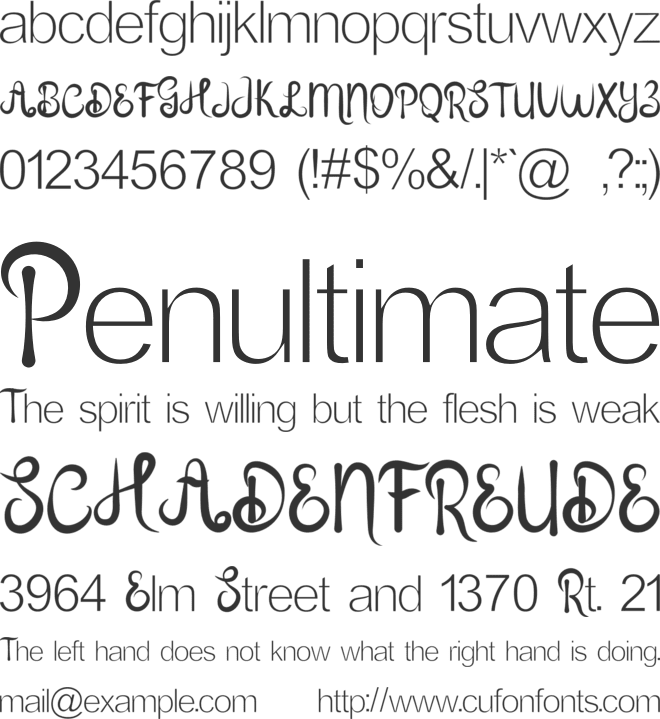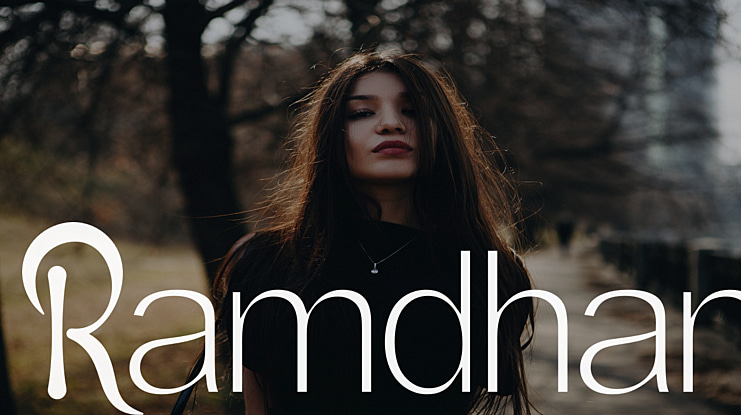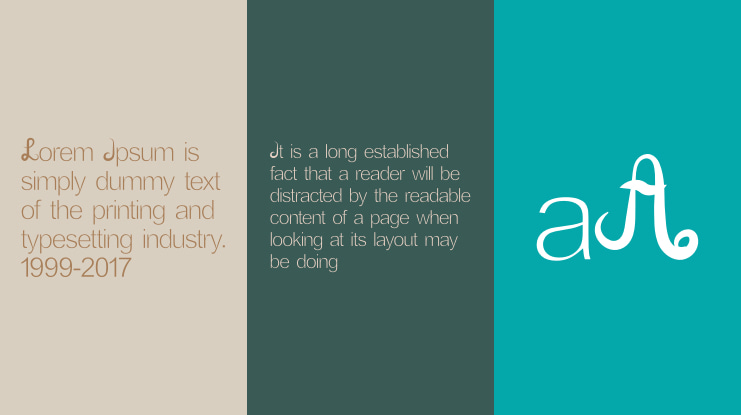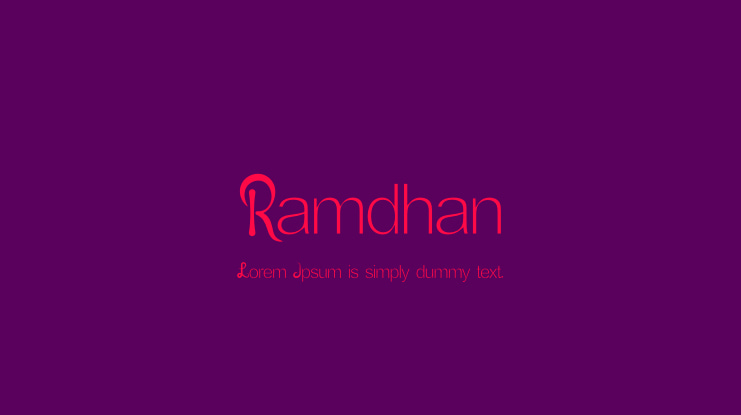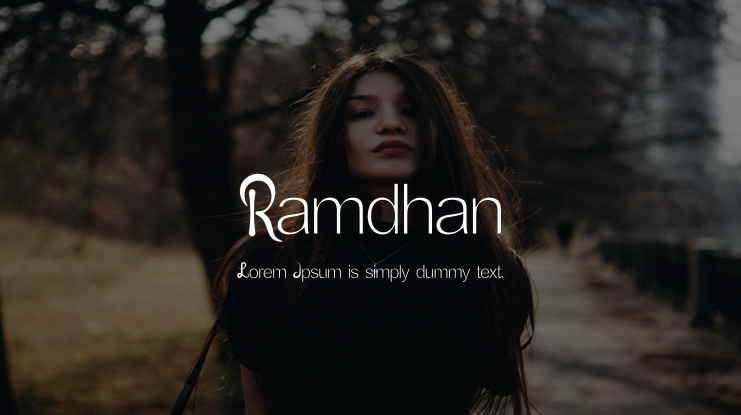
Ramdhan Font
Ramdhan is a tall and elegant handwritten font. Use it to make your ideas even more realistic and create spectacular designs! https://www.creativefabrica.com/product/ramdhan/ref/245145/